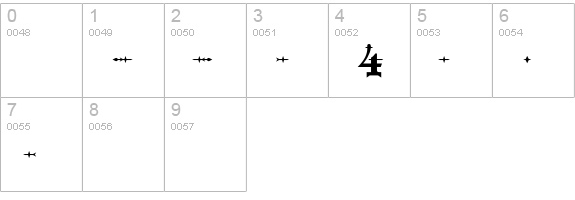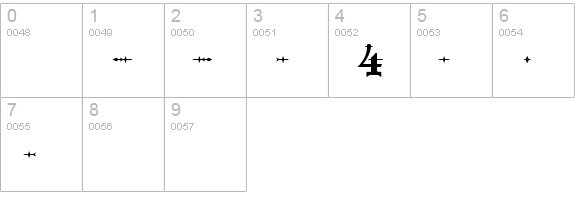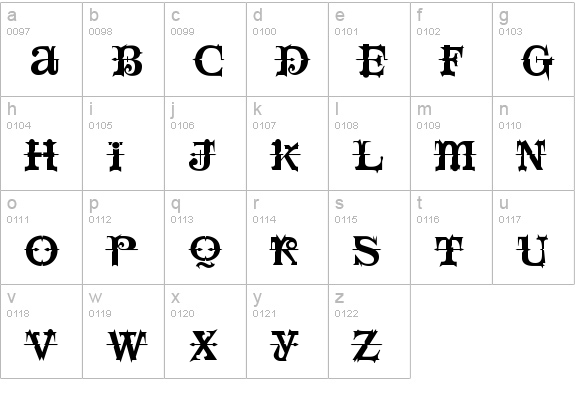
LushUs Font Details
LushUs font is a stunning and elegant typeface that exudes sophistication and charm. Its intricate details and flowing lines make it perfect for adding a touch of luxury to any design project. Whether you're creating invitations, branding materials, or social media graphics, LushUs font will elevate your work to new heights. The best part? LushUs font is available for free download at FontsMarket.com. This means you can access this beautiful font without any cost, allowing you to bring your creative visions to life without breaking the bank. Don't miss out on this opportunity to enhance your designs with the timeless beauty of LushUs font. Download it today and start creating stunning visuals that truly stand out.